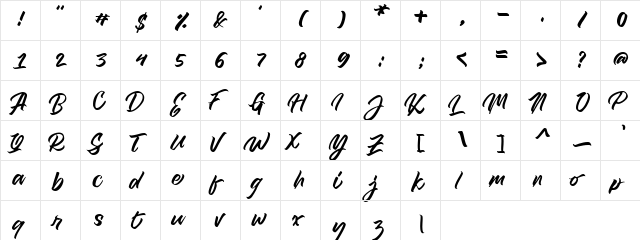
Royal muffin Regular
| Foundry | sigit nurwicaksono and salty and sleep |
Design Context for Royal muffin Typeface
Royal muffin is a composed and adaptable typeface that performs quietly and consistently across a wide range of design contexts.